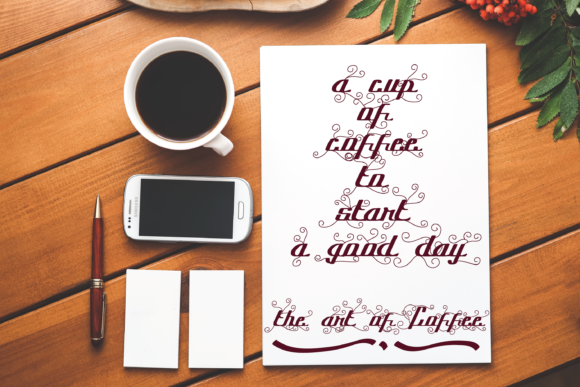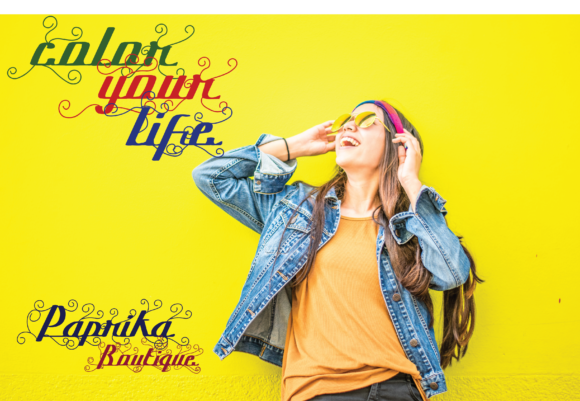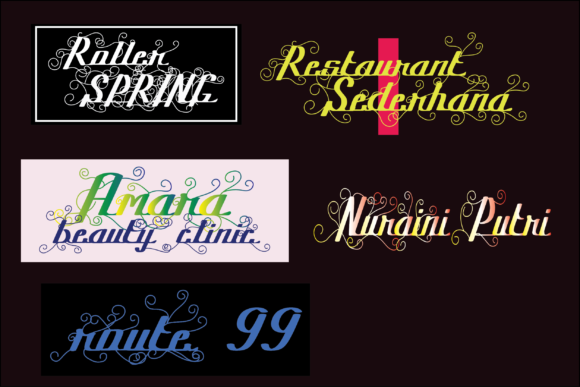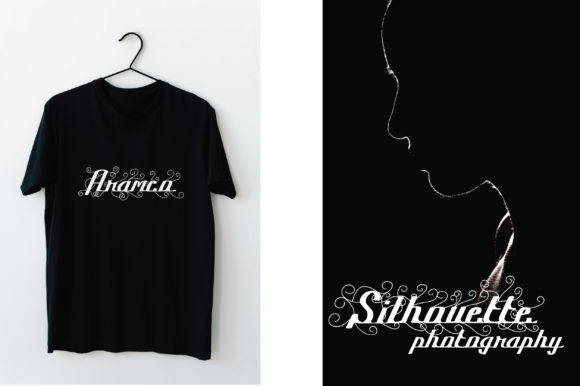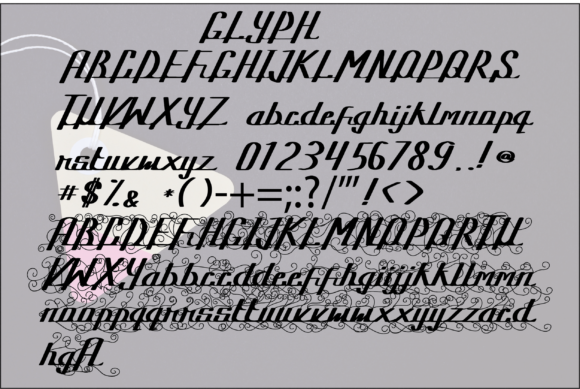
Batique Font
About Batique Font
The Batique is a beautiful handwriting script font, inspired by famous batik patterns from Javanese Indonesia. It can be used for branding projects, logos, t-shirts, social media posts, and much more!